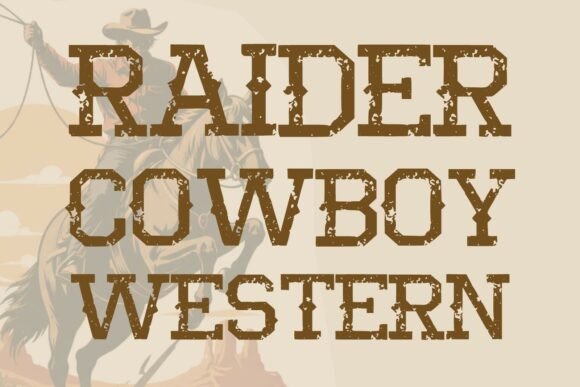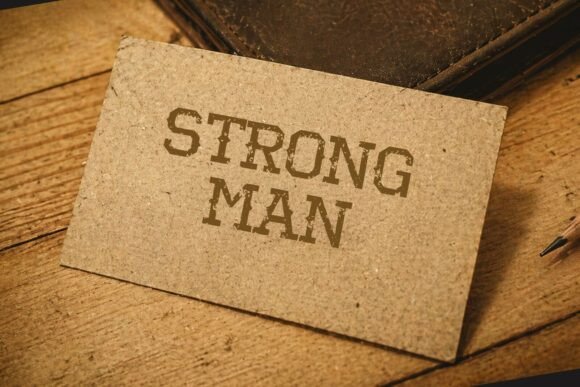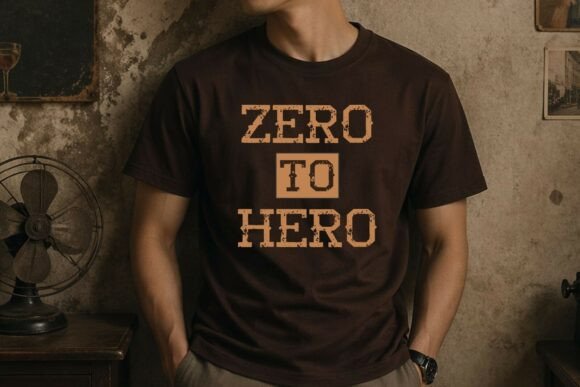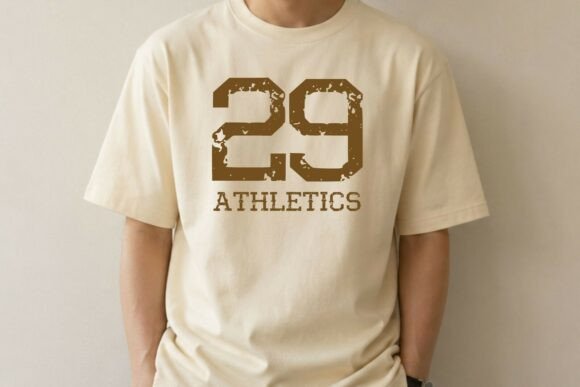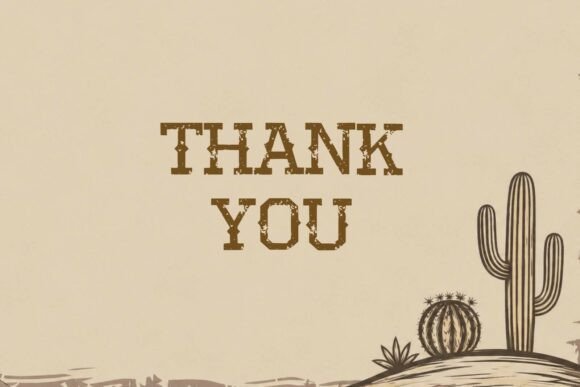
The Wild West of Typography
Imagine yourself sitting around a campfire, listening to an old cowboy spinning tales of the wild west. The flickering flames dance across the faces of the rugged riders, and the sound of their boots scraping against the ground echoes through the night. It’s a moment that sparks creativity, a moment that makes you want to create something that captures the essence of the old west. And that’s exactly what the Cowboy Simple Grunge Font is all about.
Designed to evoke the feeling of classic old west signage and vintage cowboy aesthetics, this font is perfect for designers looking to add a touch of rugged authenticity to their designs. With its bold letterforms and distressed grunge texture, the Cowboy Simple Grunge Font is a valuable addition to any designer’s toolkit.
Cowboy Simple Grunge Font Features
- Font Style: A distressed, grunge-inspired font with a rustic feel, perfect for adding a touch of ruggedness to your designs.
- Character Count: 250+ glyphs, including uppercase and lowercase letters, numbers, and punctuation marks, making it suitable for various design projects.
- Unique Characteristics: Distressed texture, rough edges, and subtle imperfections give this font a unique, hand-crafted look that sets it apart from other fonts.
Cowboy Simple Grunge Font Review
Overall, I think the Cowboy Simple Grunge Font is a solid choice for designers looking for a distressed, grunge-inspired look. Here are some things that really work well: ✨
- Unique texture: The font has a great, worn-in feel that adds a lot of character to any design.
- Easy to read: Despite the distressed look, the font is still relatively easy to read, making it perfect for body text or headlines.
- Great for vintage designs: If you’re going for a retro or vintage look, this font is a great choice.
However, there are a few limitations to keep in mind: ⚠️
- Not suitable for formal designs: The grunge look may not be the best fit for formal or professional designs.
- Limited customization options: The font is relatively basic, so you may not have a lot of options for customizing it to fit your design needs.
Overall, I’d give the Cowboy Simple Grunge Font 4 out of 5 stars. It’s a great choice for designers who want a unique, distressed look, but it may not be the best fit for everyone.
The Cowboy Simple Grunge Font is perfect for creating a rustic, country-inspired design. Use it for:
- Western-themed designs, such as country weddings or cowboy-inspired graphics.
- Outdoor and adventure-themed designs, such as hiking or camping logos.
- Food and beverage designs, such as BBQ or country-style restaurants.
Remember to experiment with different font sizes, colors, and styles to get the most out of this unique font.
Q: What is the recommended font size and line spacing for the Cowboy Simple Grunge Font?
The recommended font size for the Cowboy Simple Grunge Font is between 12-24 points. For line spacing, we recommend a minimum of 120-150% of the font size. This will help ensure that the font is legible and easy to read, even in larger sizes.